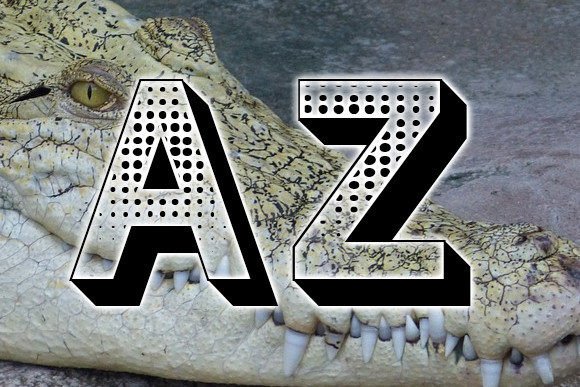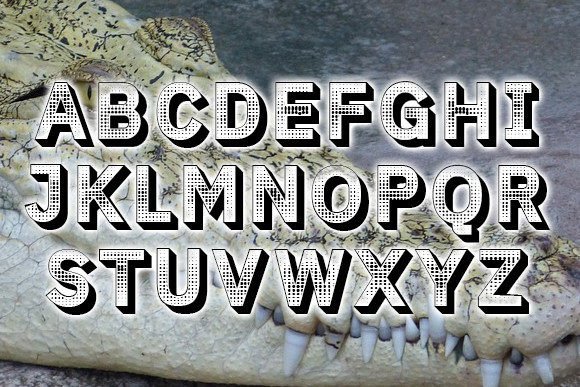
Crocodile Font: The Ultimate 3D Typeface for Stunning Designs
Are you tired of using the same old fonts for your designs? Do you want to add a touch of uniqueness and style to your posters, flyers, and prints? Look no further than the Crocodile Font, a stylish 3D typeface that is sure to take your designs to the next level.
What is Crocodile Font?
Crocodile Font is a creative display font that is designed to make a statement. Its 3D effect gives it a bold and eye-catching appearance that is perfect for headlines, titles, and other design elements. The font is highly versatile and can be used for a wide range of design projects, from posters and flyers to prints and digital media.
Key Features of Crocodile Font
• Stylish 3D Effect: The Crocodile Font features a stunning 3D effect that gives it a unique and modern look.
• Highly Versatile: The font can be used for a wide range of design projects, from posters and flyers to prints and digital media.
• Unique and Creative: The Crocodile Font is a one-of-a-kind typeface that is sure to make your designs stand out.
Benefits of Using Crocodile Font
There are many benefits to using the Crocodile Font in your designs. Here are just a few:
• Adds Visual Interest: The 3D effect of the Crocodile Font adds visual interest to your designs, making them more engaging and attention-grabbing.
• Increases Brand Recognition: A unique and stylish font like Crocodile can help to increase brand recognition and set your brand apart from the competition.
• Perfect for Headlines and Titles: The Crocodile Font is perfect for headlines and titles, where a bold and eye-catching font is needed.
Design Ideas Using Crocodile Font
The Crocodile Font is a versatile typeface that can be used in a wide range of design projects. Here are some design ideas to get you started:
• Posters: Use the Crocodile Font to create eye-catching posters for events, promotions, or products.
• Flyers: Add a touch of style to your flyers with the Crocodile Font, perfect for advertising, marketing, or informational materials.
• Prints: Use the Crocodile Font to create stunning prints, such as business cards, brochures, or catalogs.
• Digital Media: Use the Crocodile Font in your digital media, such as social media graphics, email headers, or website titles.
In conclusion, the Crocodile Font is a stylish 3D typeface that is perfect for designers and crafters looking to add a touch of uniqueness and style to their designs. With its highly versatile design, ease of use, and stunning 3D effect, the Crocodile Font is sure to take your designs to the next level. So why wait? Download the Crocodile Font today and start creating stunning designs that will leave a lasting impression.